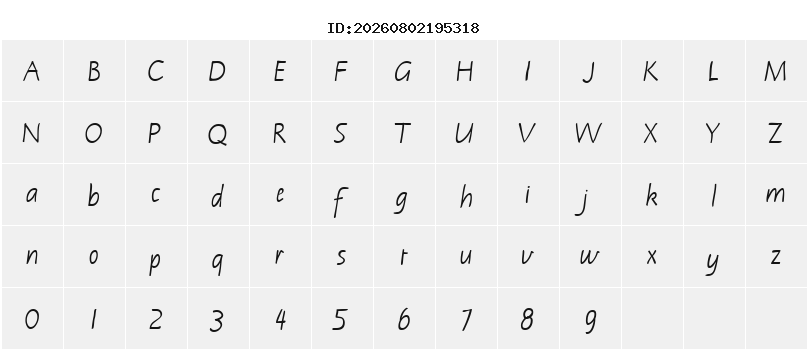
Notehand Preview
About Notehand.ttf
Notehand.ttf is a modern, elegant sans-serif font designed for ultimate readability and visual harmony. Perfect for branding, headlines, web design, and print materials.